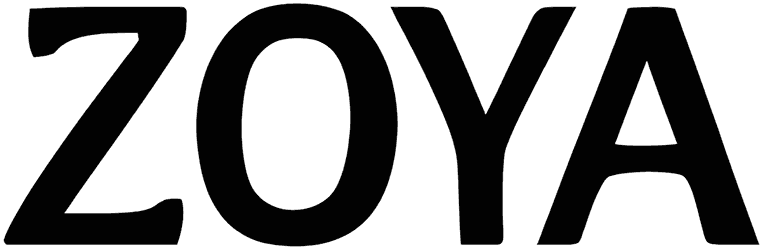
Zoya Font
Zoya is a modern sans serif font that is commonly known for its full details and high legibility. This masterpiece provides two distinctive styles and lets you add a bit of variety to any kind of editorial projects like video game posters, stickers, menus, social media posts, and wood engravings.
Due to its bold and aesthetic form, it can push a sense of simplicity, momentum, professionalism, or minimalistic in your creative ideas.